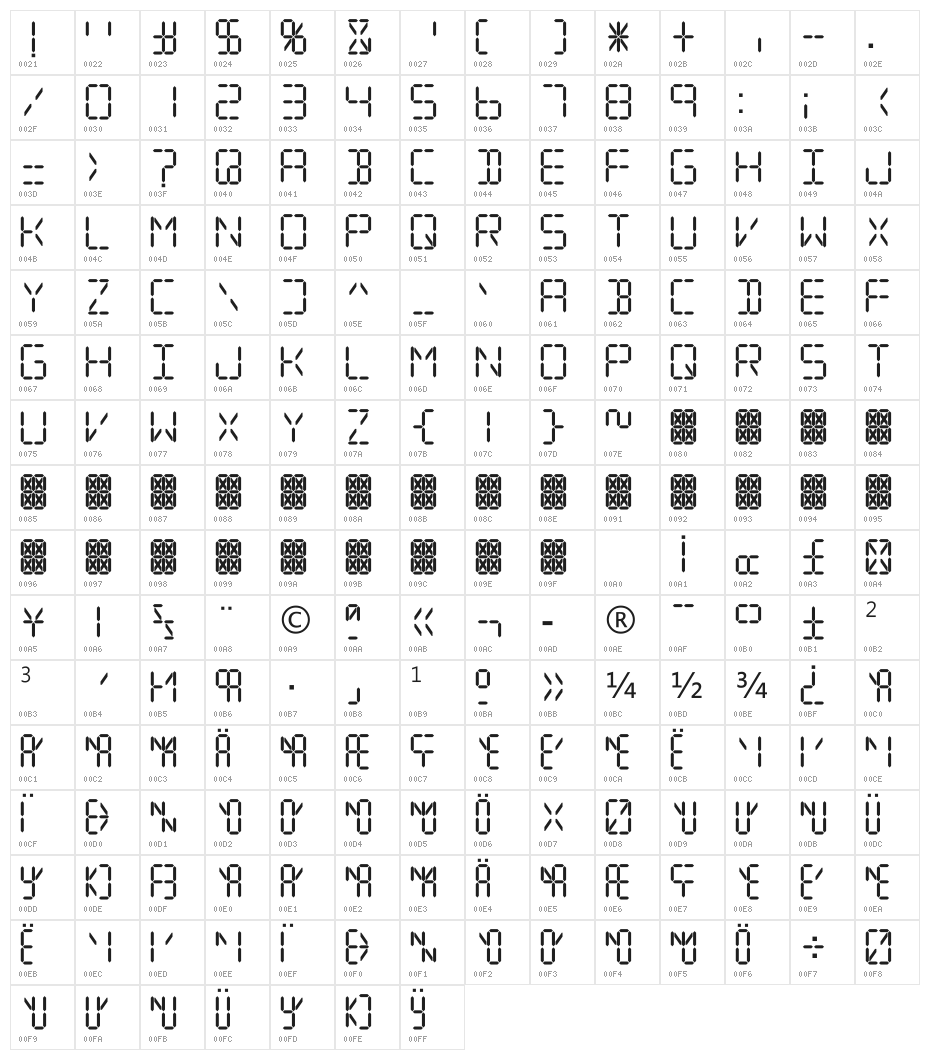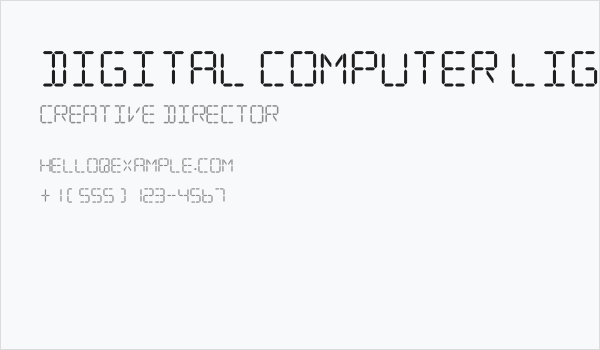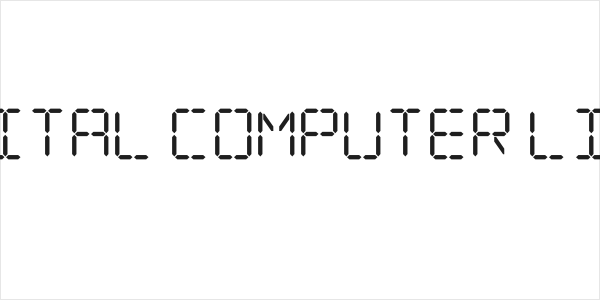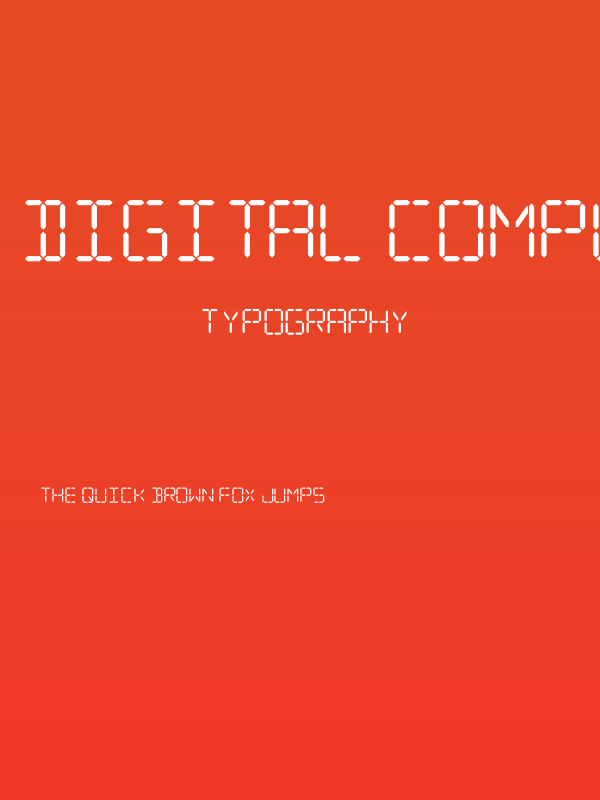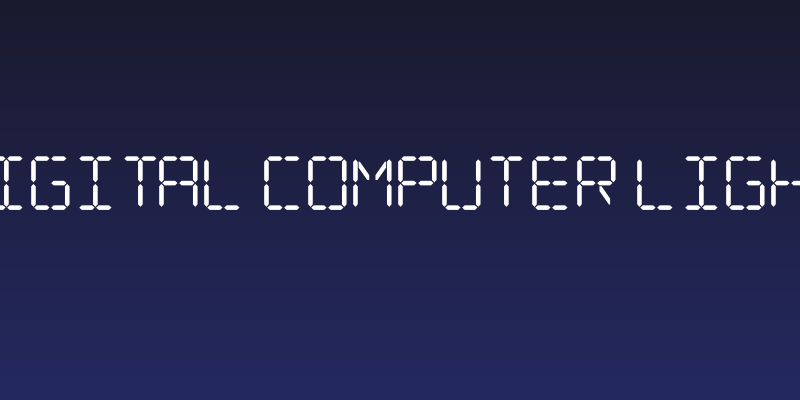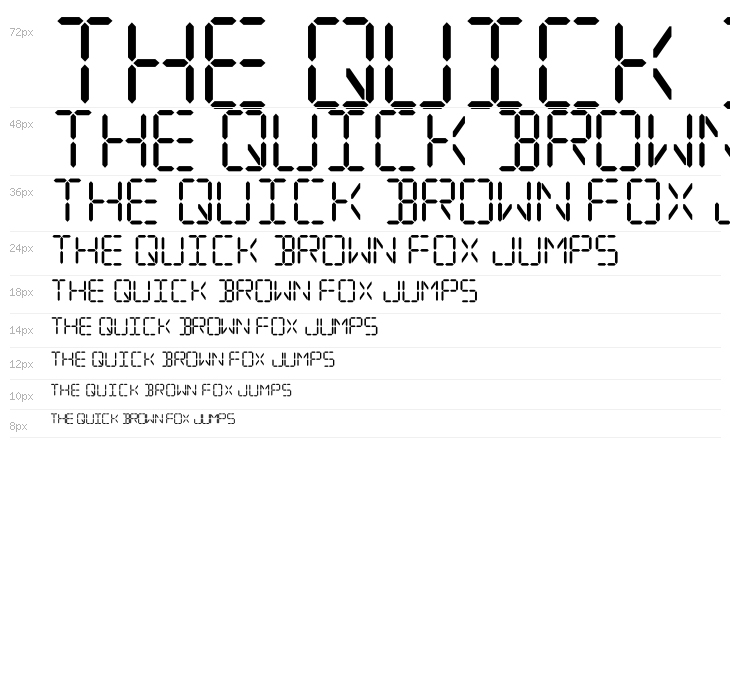
Digital Computer Light Font
Digital Computer Light Description
This font features a distinct digital style reminiscent of old digital clocks and displays. Each character is composed of segmented lines, creating a geometric and technical appearance. The uppercase and lowercase letters, as well as numbers, maintain a consistent structure, emphasizing clarity and readability. The font includes a full set of alphanumeric characters and a selection of special symbols, each designed with the same segmented style. This design choice gives the font a retro-futuristic feel, making it ideal for projects that require a digital or technological aesthetic.
| Overall Style | Retro-Futuristic |
| Use Case | Headlines, Logos, Digital Displays |
| Proposed Projects | Ideal for digital-themed projects, tech branding, retro designs, or any application requiring a futuristic or technical look. |